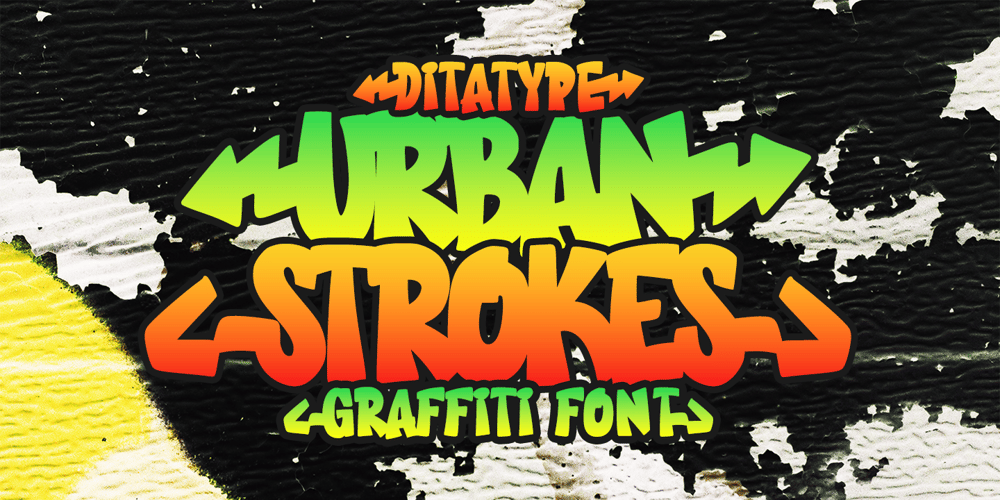
Urban Strokes Font Family was designed by Donis Miftahudin and published by Ditatype. Urban Strokes contains 1 styles and family package options. Urban Strokes is a bold, all-caps graffiti font designed with an urban flair. Its bubble-shaped letters feature consistent proportions, delivering a balanced, eye-catching style. With its vibrant and playful look, Urban Strokes infuses any design with modern street culture energy and standout appeal. In addition, enjoy the features here. Features: Ligatures Multilingual Supports PUA Encoded Numerals and Punctuations Urban Strokes fits in logos, posters, branding materials, print media, and many more designs. Find out more ways to use this font by taking a look at the font preview.Thanks for purchasing our fonts. Hopefully, you have a great time using our font. Feel free to contact us anytime for further information or when you have trouble with the font. Thanks a lot and happy designing.